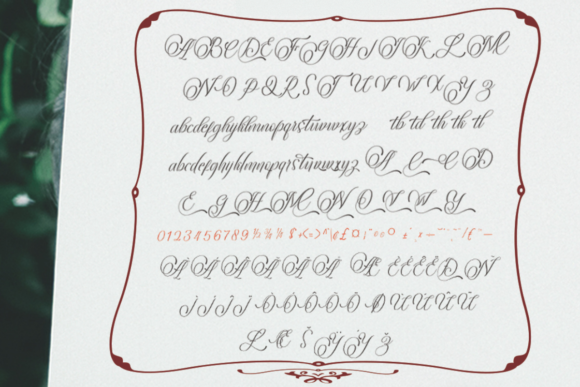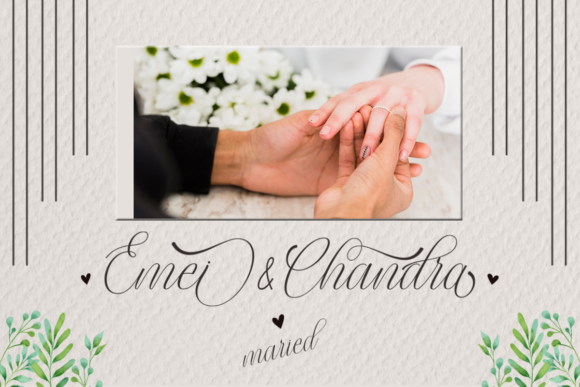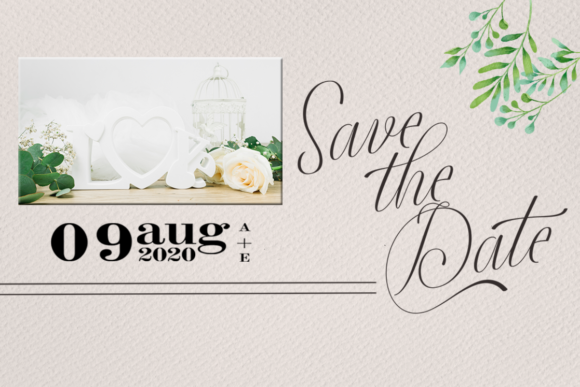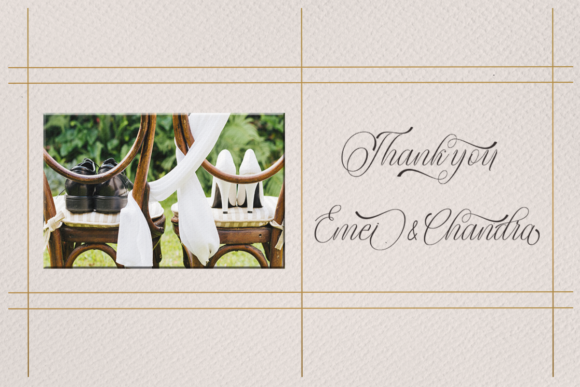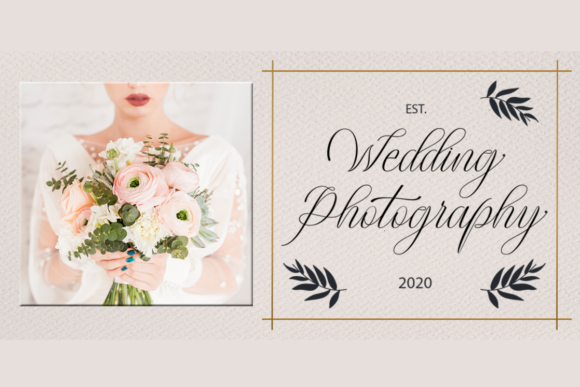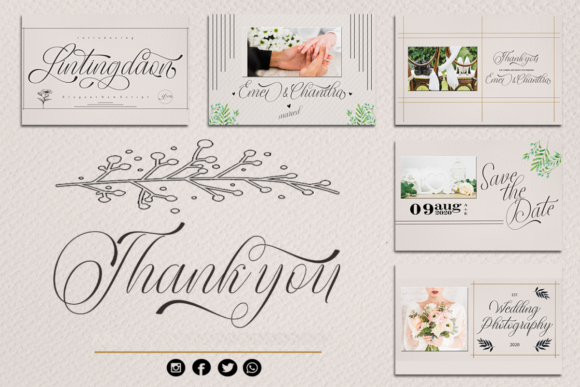
Introduction to Lintingdaon Script Font
As designers, we’ve all been there – staring at a blank page, trying to bring our creative vision to life. The perfect font can make all the difference in elevating a design from ordinary to extraordinary. For those special moments, like weddings and birthdays, a high-quality script font can add a touch of elegance and sophistication to any project.
Enter Lintingdaon Script Font, a beautiful and versatile design resource that’s sure to capture hearts. With its stunning swashes and soft rhythm, this font is perfect for creating unique and romantic invitations, cards, packaging, and logos. Whether you’re working on a creative project or just need a reliable design resource, Lintingdaon Script Font is a valuable addition to any designer’s toolkit.
Key Features of Lintingdaon Script Font
- Unique, hand-drawn design perfect for creative projects and artistic expressions
- High-quality font suitable for a variety of applications, including logos, titles, and body text
Honest Review: Lintingdaon Script Font
What works well is the high-quality design of the font. The transparent background allows for seamless integration with any background image or color, making it perfect for various design applications.
- ✨ Easy to customize: The font is highly legible, making it easy to customize and adapt to different design needs.
- ✨ Versatile: The script font can be used for a wide range of creative projects, from wedding invitations to branding materials.
One limitation I noticed is that the font may not be suitable for small text sizes, as the script style can become illegible at very small scales.
Overall, I’m impressed with the Lintingdaon Script Font. Its high-quality design, versatility, and free download make it an excellent addition to any designer’s toolkit. With a little caution when it comes to small text sizes, this font is sure to become a favorite among designers.
The Lintingdaon Script Font is suitable for a variety of creative projects, including wedding invitations, party decorations, and branding materials.